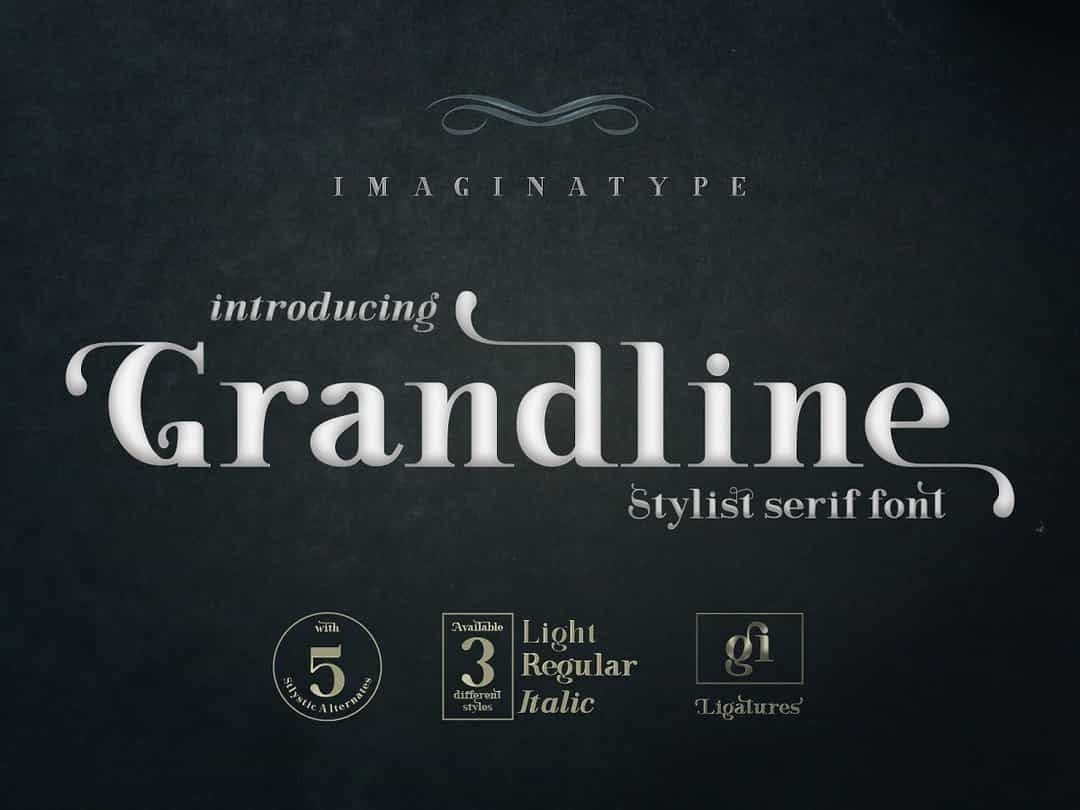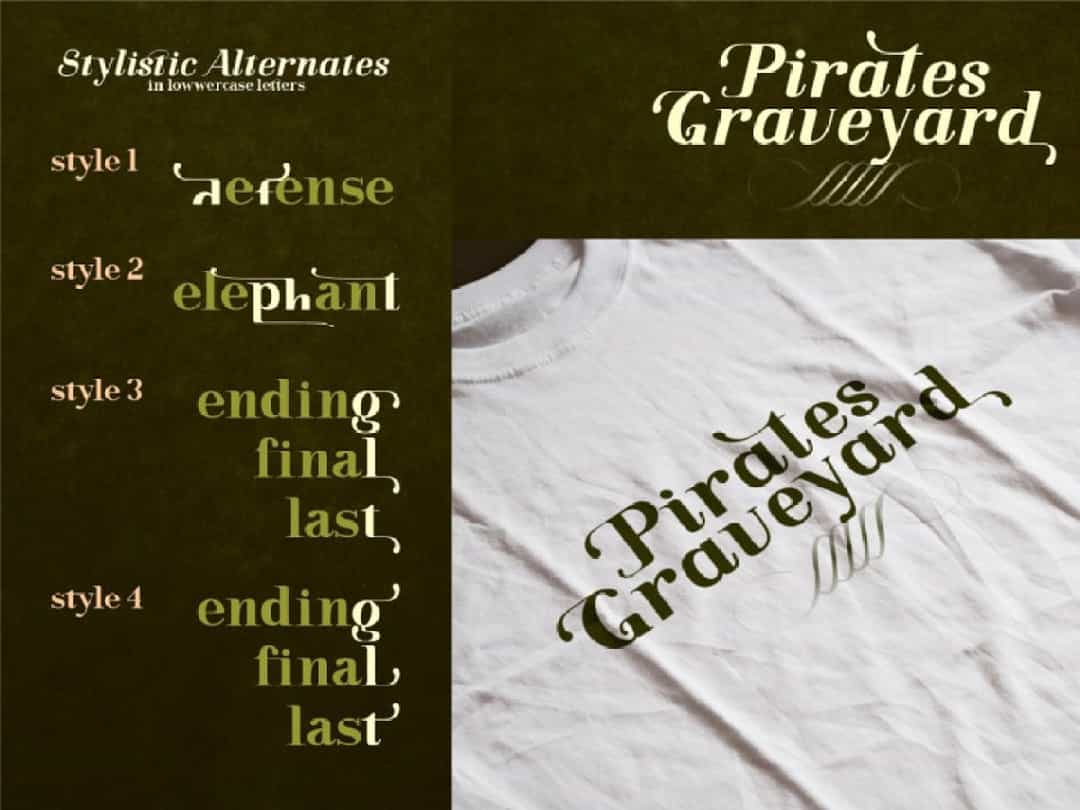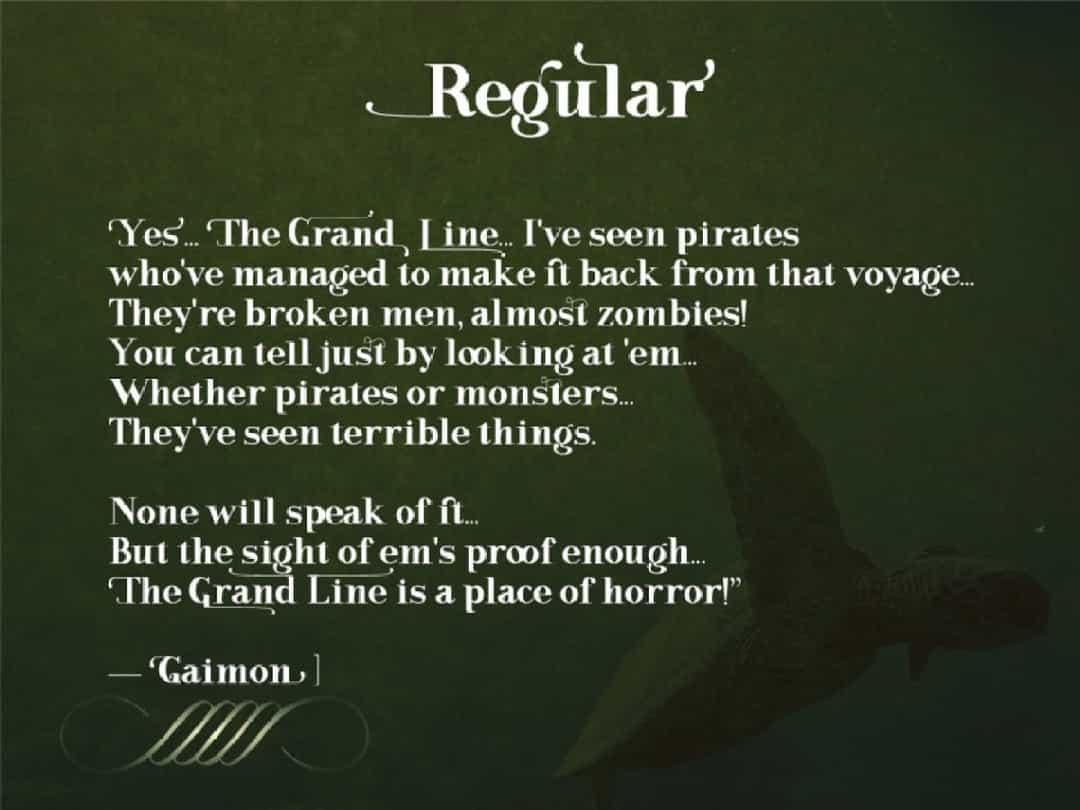
Grandline Font – A contemporary, classy and bold serif typeface. A beautiful typeface that comes with an assortment of alternative fonts and Ligatures. Grandline is a typeface for display designed to be influenced by retro curves that was popular in the 50-60s and incorporates it into contemporary design, with its the bold weight.